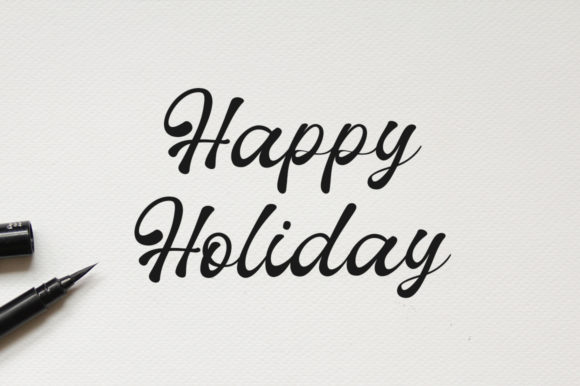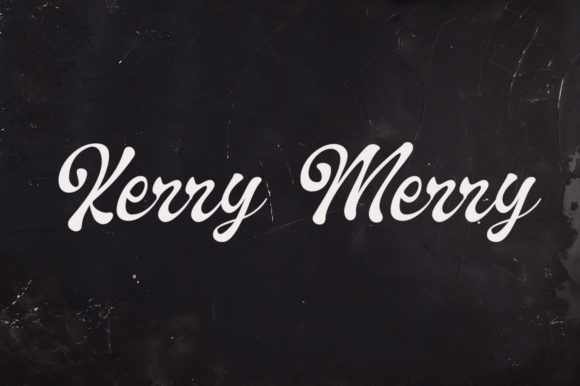
Cherio Font
About Cherio Font
Cherio is a handcrafted script font that’s highly recommended for logos, card designs, branding, posters, and much more! Get inspired by its smooth and relaxed look and feel.